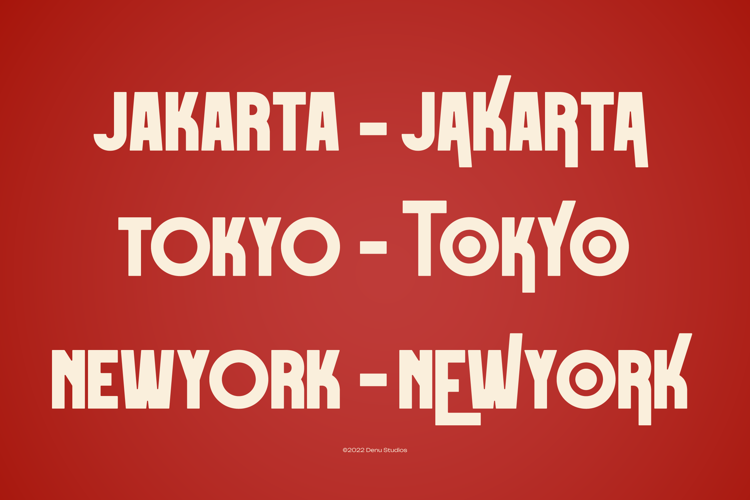
Aeterna Monaliya Font
About Aeterna Monaliya Font
More info from Denustudios
Aeterna Monaliya | Display Bold Sans Serif product packaging, mugs, quotes, posters, shopping bags, t-shirts, book covers, name card, invitation cards, greeting cards, label, photography, watermark, special events, and all your other lovely projects that need a Display Bold Sans Serif taste.